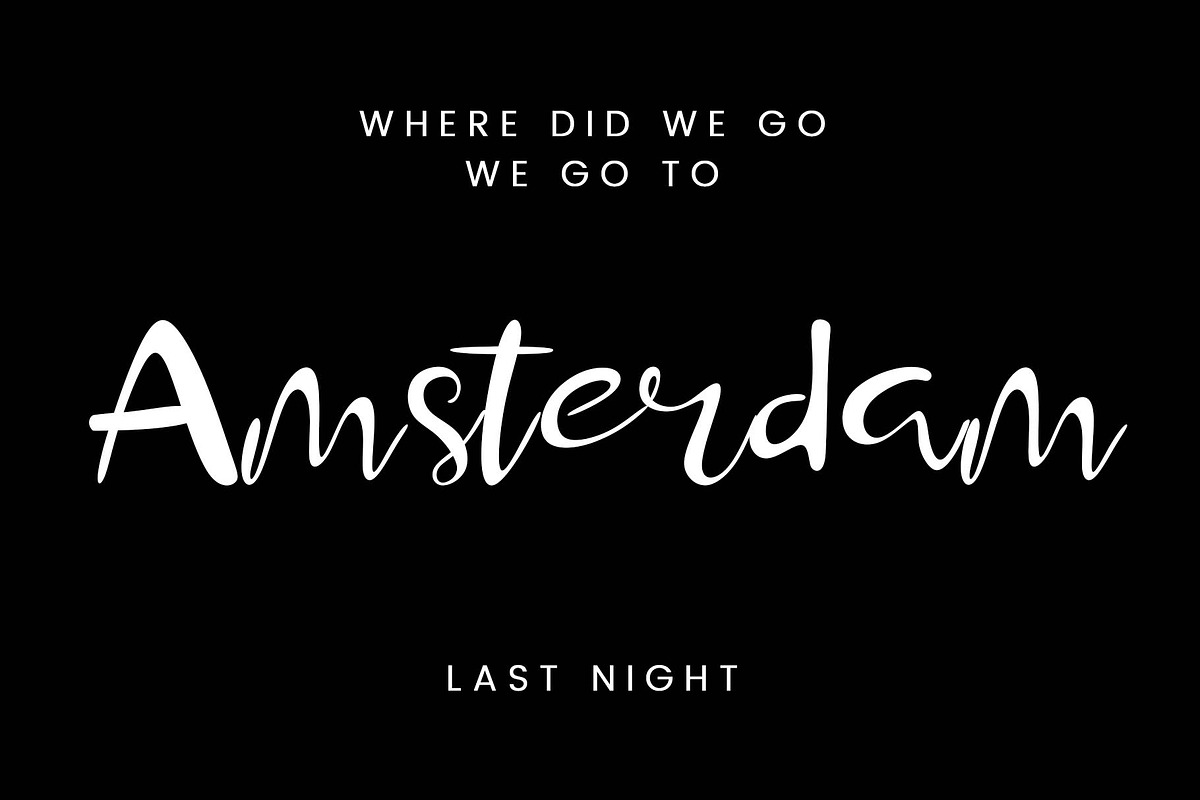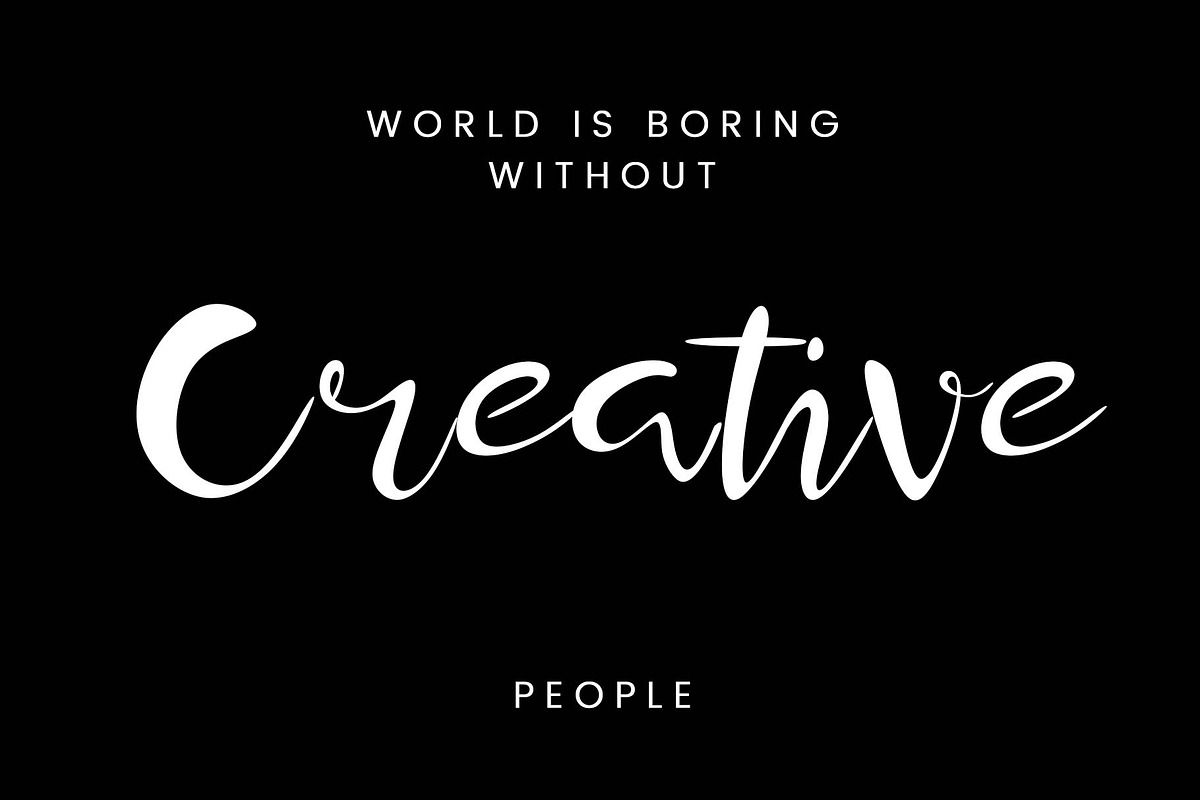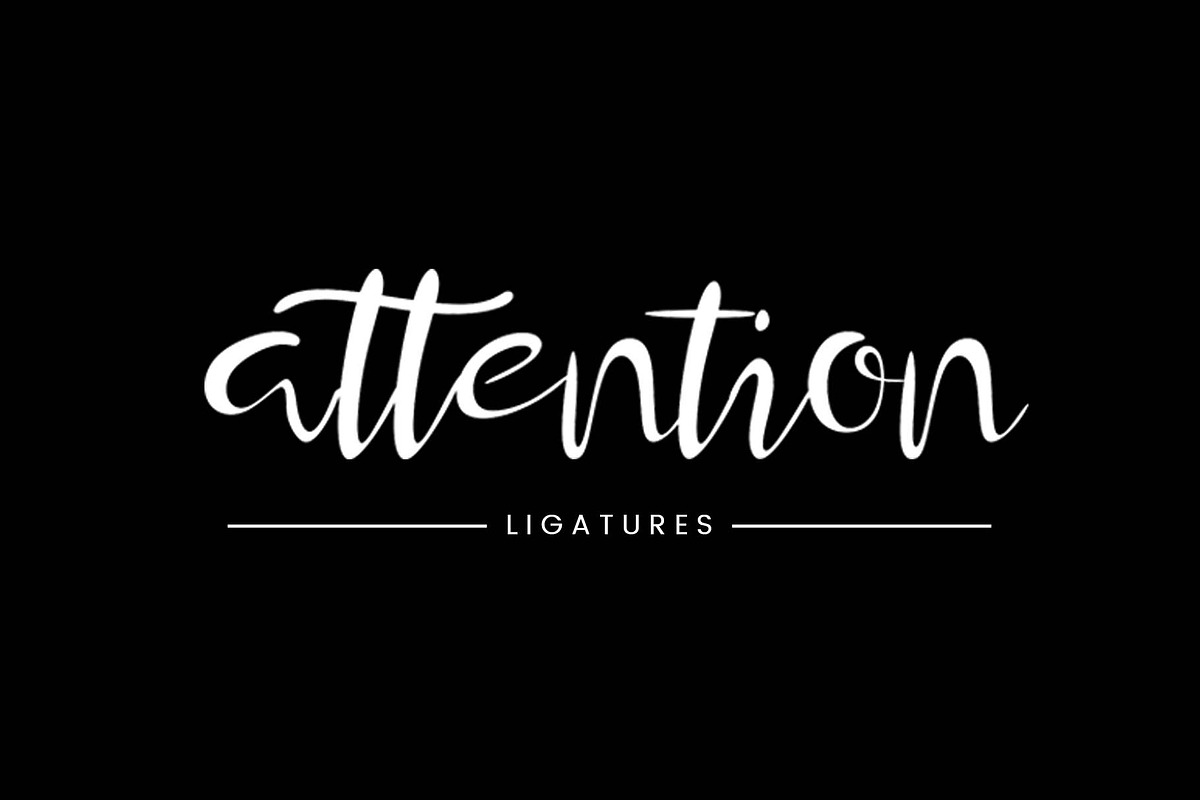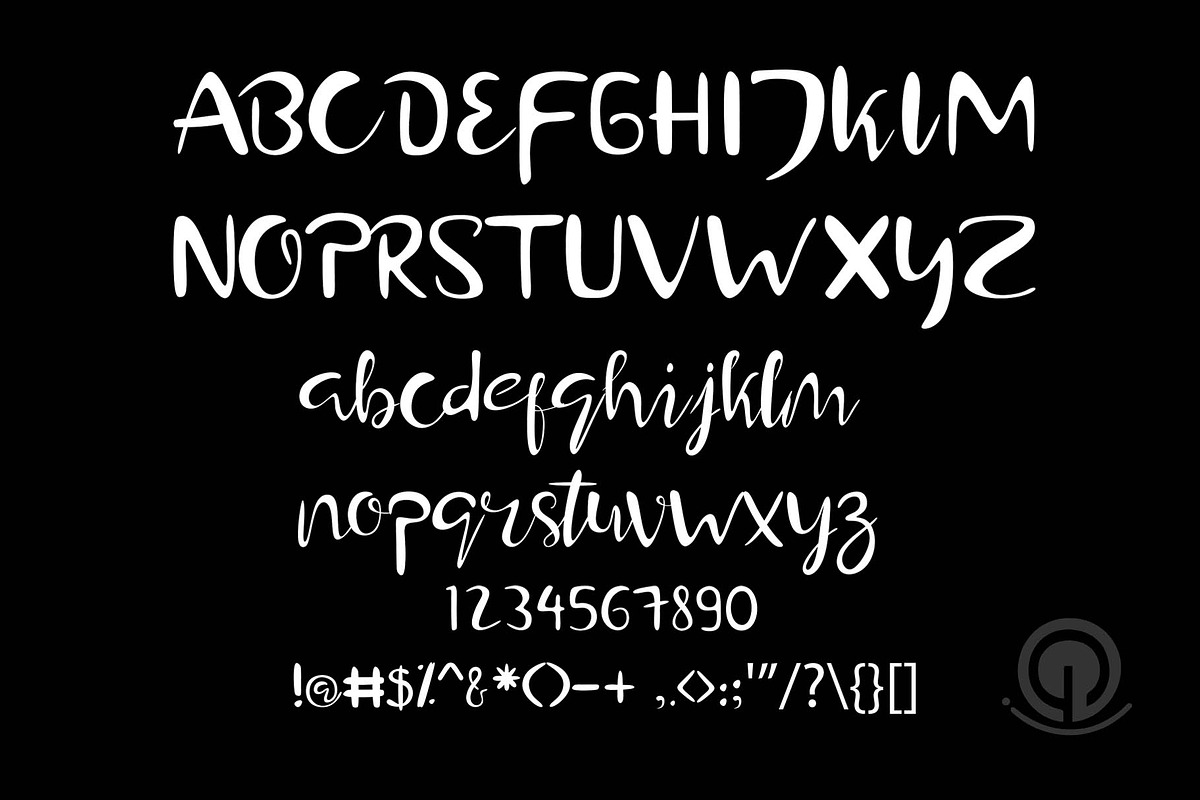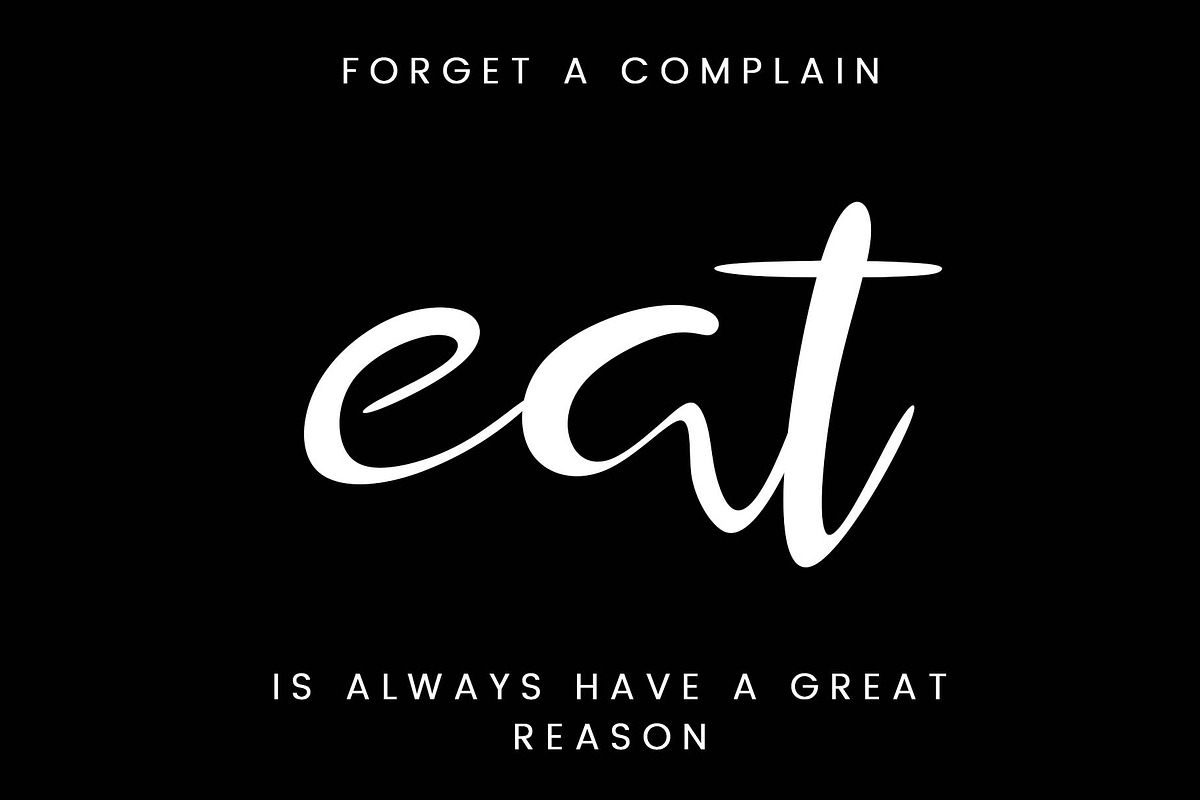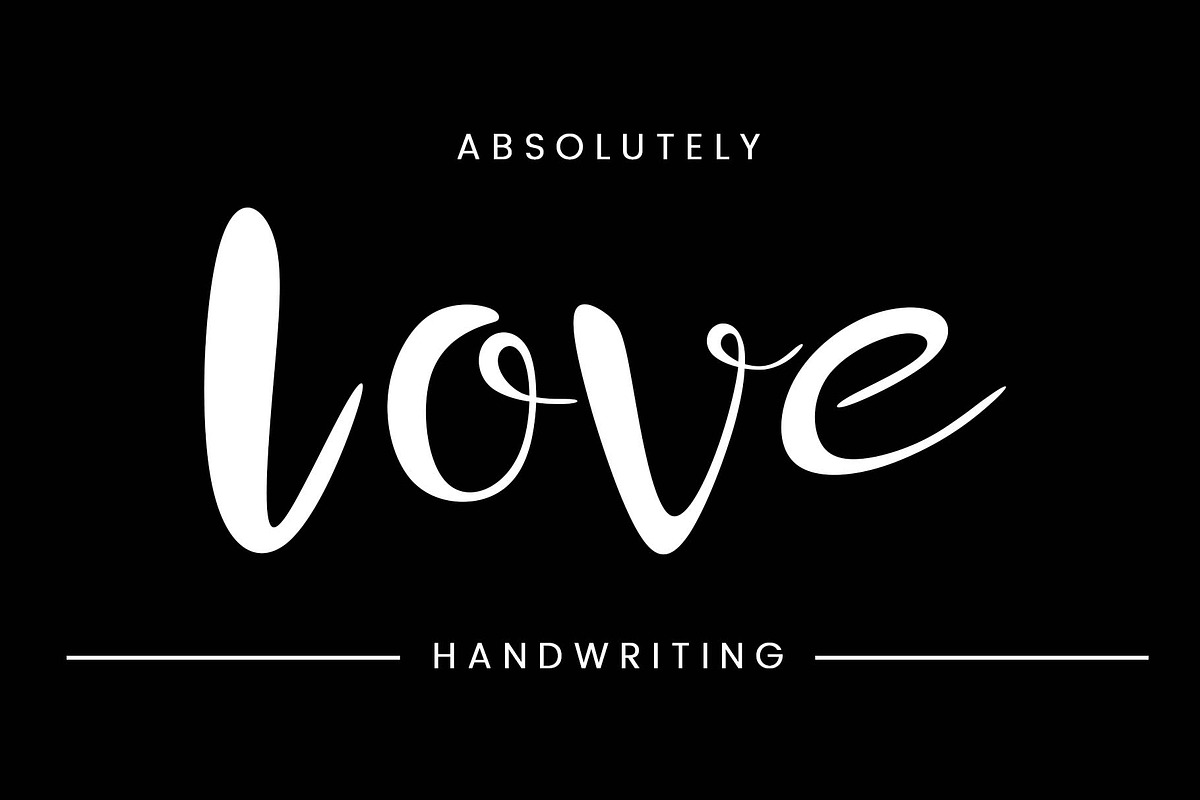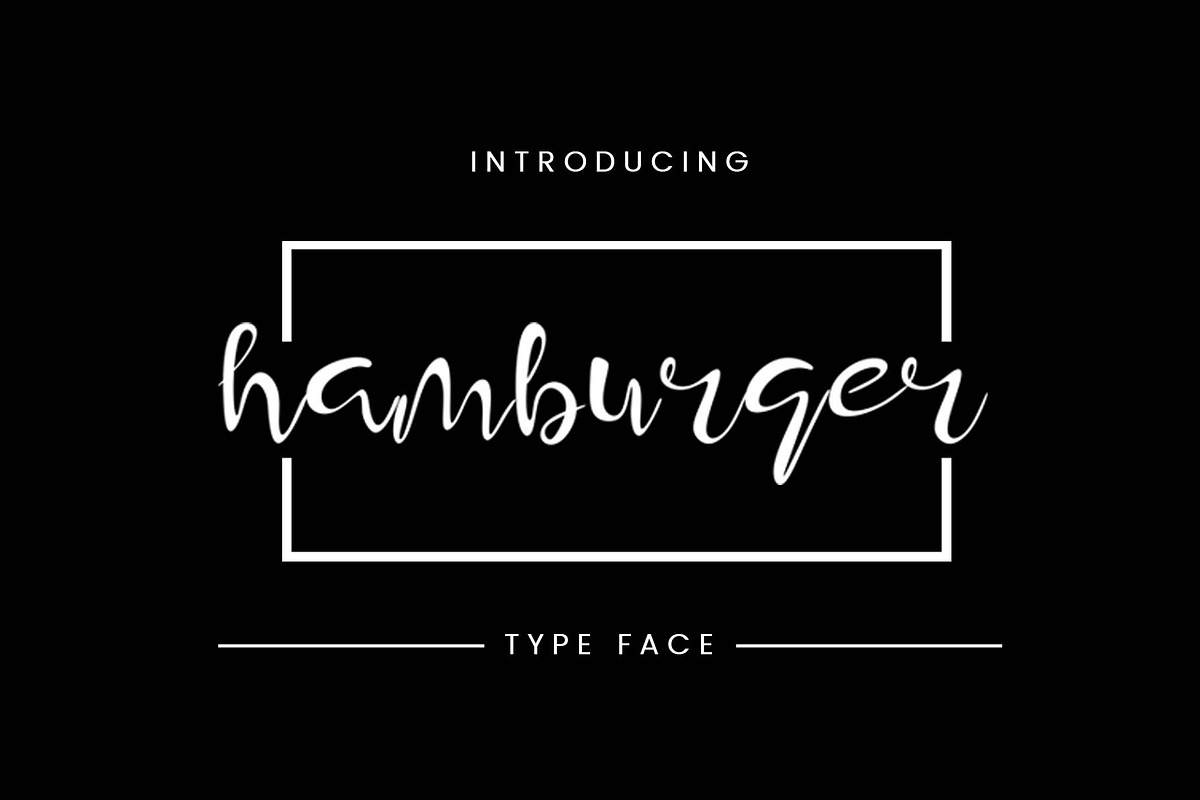
Hamburger Font
hey there, here is the hamburger script font. it's perfect for you to use on your poster design, logo, and many more.
Why Hamburger Font is worth a look
Hamburger Font by LetterStock fits naturally into Branding, posters, packaging, typography.